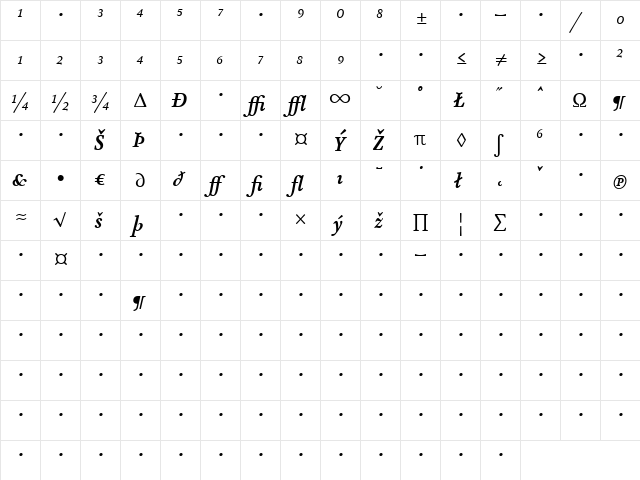
AtmaSerifExp-BoldItalic Regular Font Preview
Design Context for AtmaSerifExp-BoldItalic Typeface
AtmaSerifExp-BoldItalic carries the refined structure of traditional serif typography, with bracketed terminals and considered proportions that communicate credibility and craft. Its italic angle brings a sense of urgency and motion to the letterforms. The heavy weight commands attention and anchors typographic hierarchies.